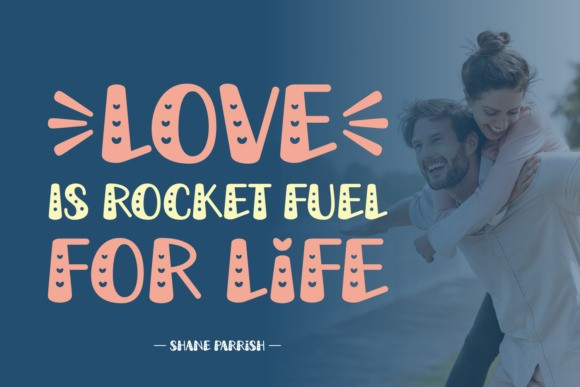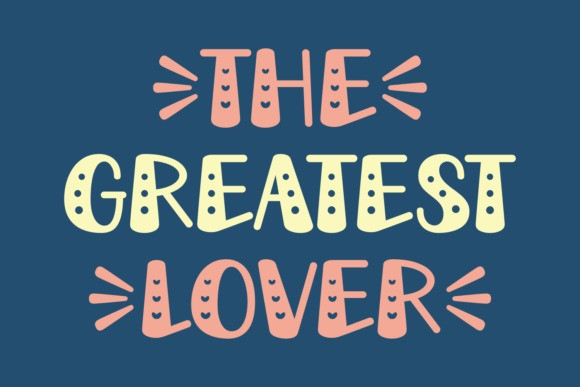
The Greatest Lover Font
The Greatest Lover Font is a fun, casual and chic display font. Add it to each of your party invitation, gathering or pretty much any design that requires a touch of youth and joy.